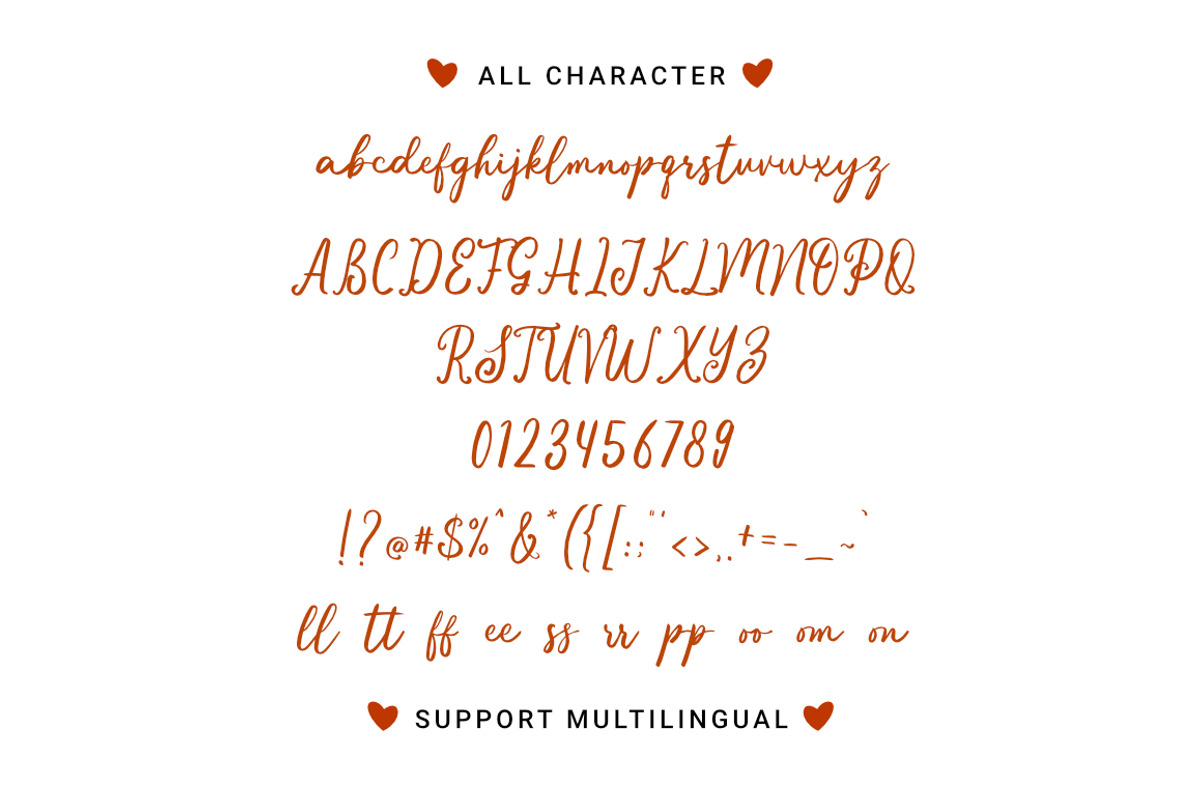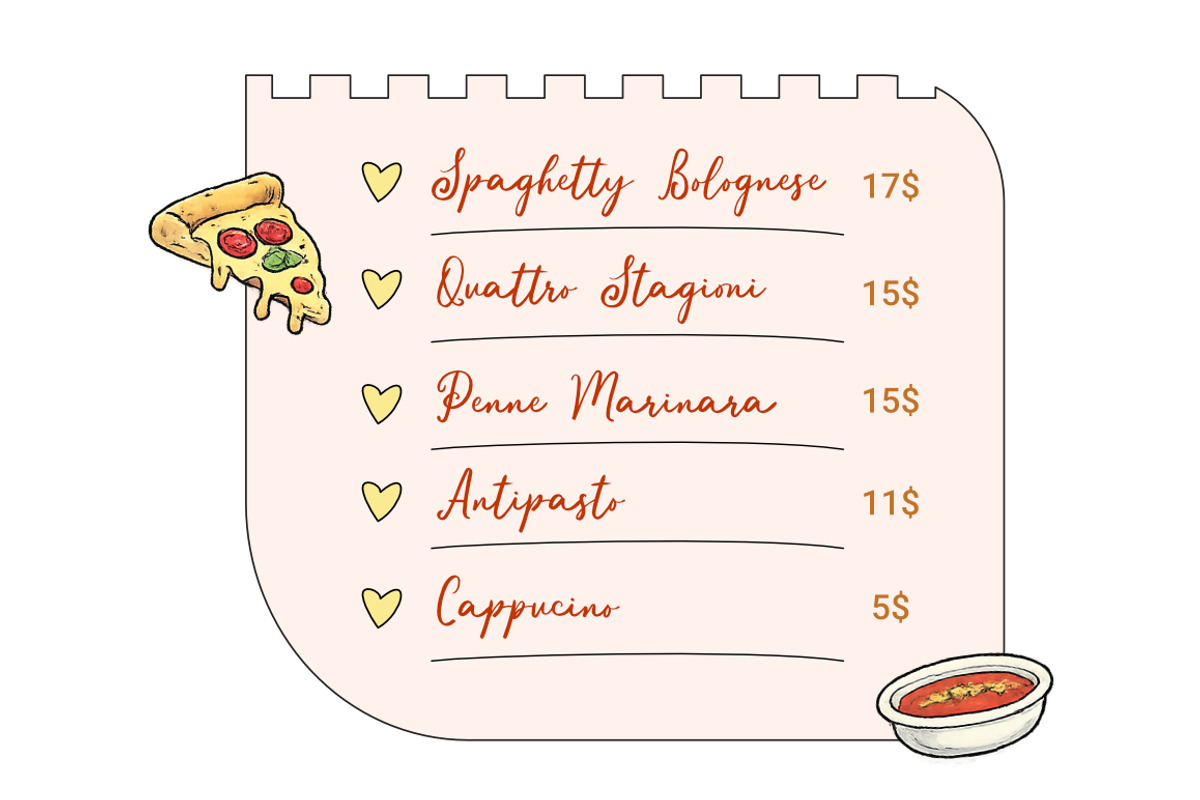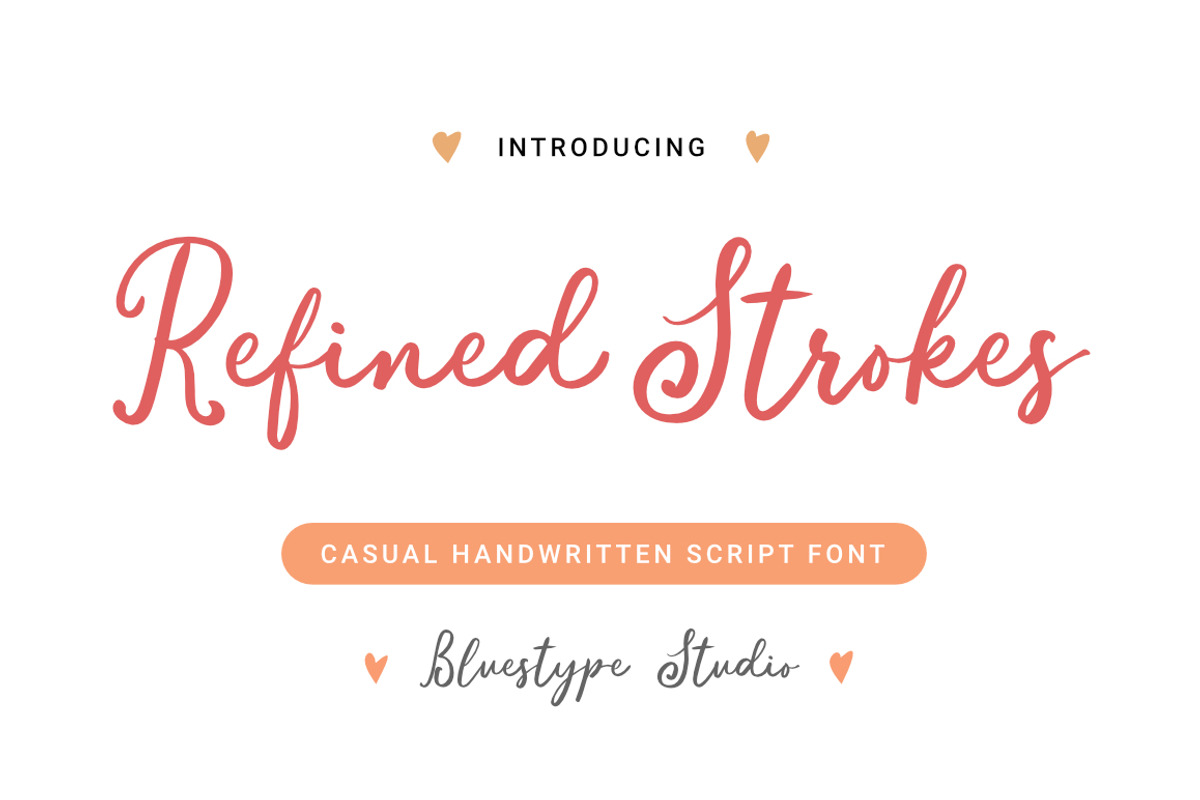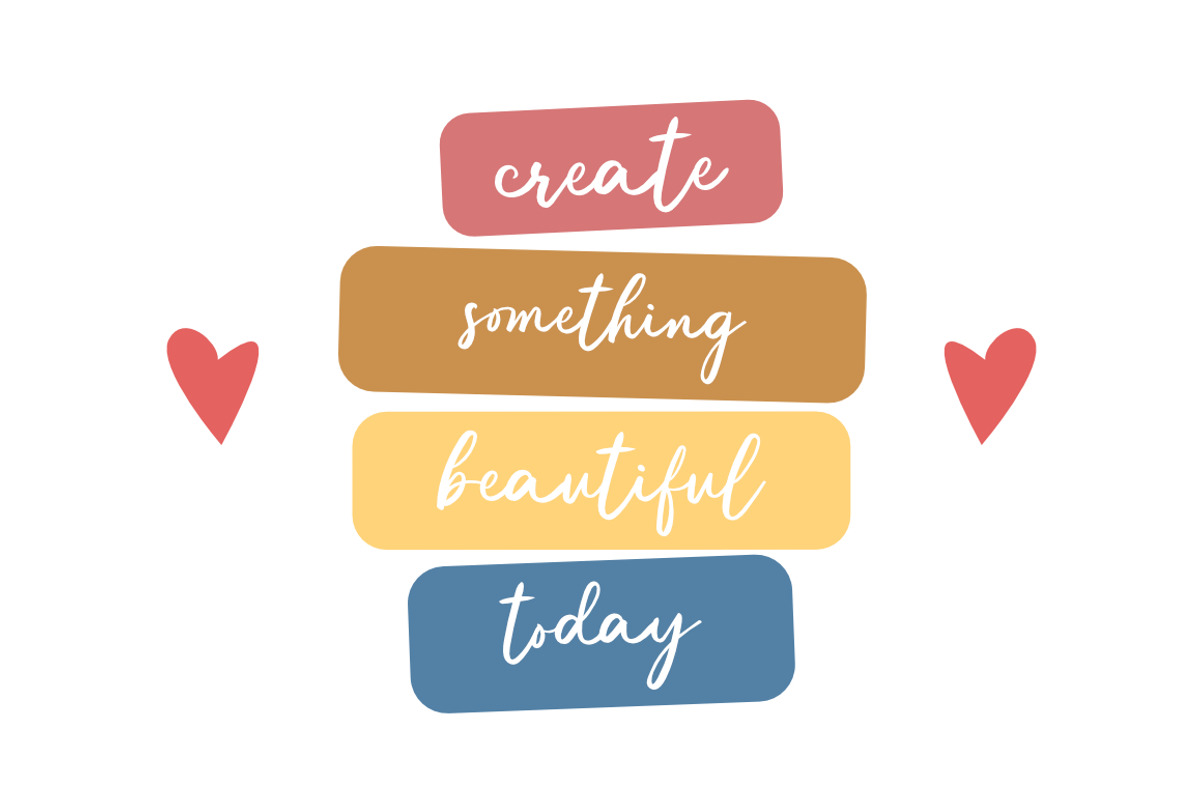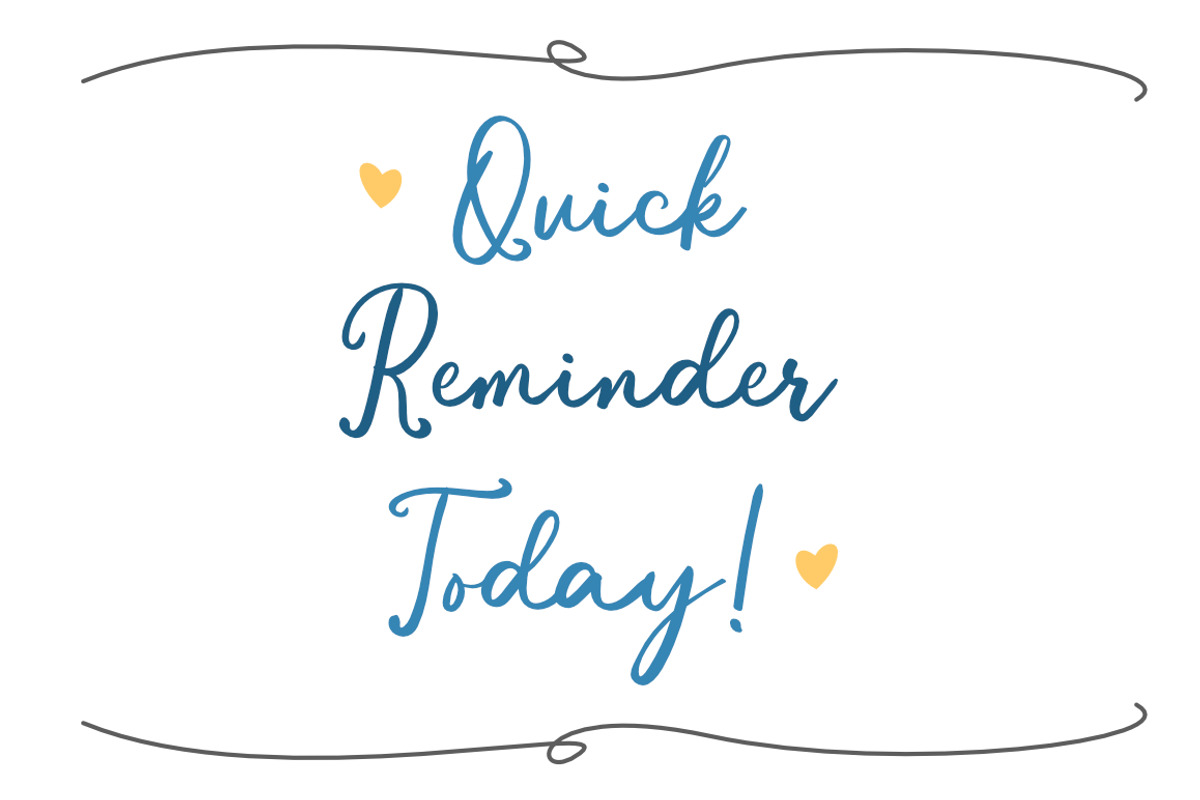
Refined Strokes - Handwritten Script
Refined Strokes is a natural handwritten font meticulously crafted to bring an authentic, human touch to your digital projects. Designed with a focus on fluid motion and natural pressure, this font captures the raw elegance of real ink on paper.